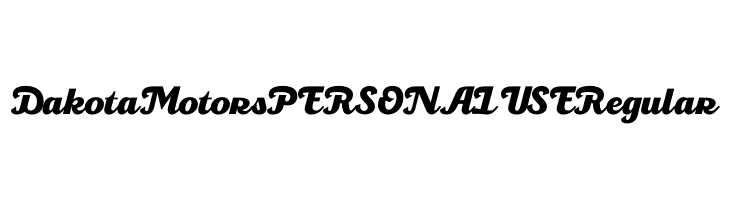
A bold, flowing script font with elegant curves and smooth strokes.
A bold, italic script font with a dynamic and elegant style.
A bold, dynamic script font with fluid, connected letters.
A bold, dynamic script font with fluid, cursive letterforms.